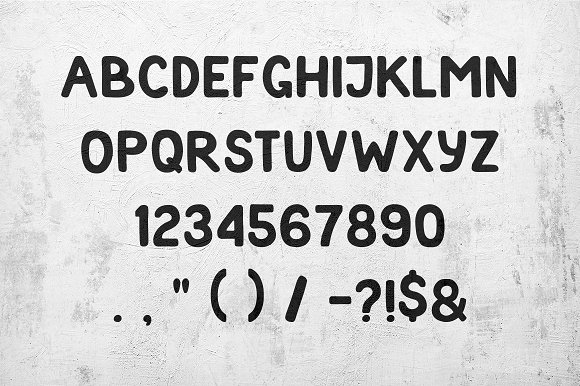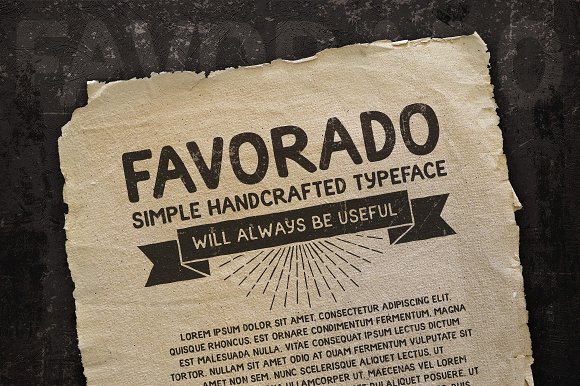
Favorado typeface
Amazing hand-crafted, sans-serif OTF font. Only uppercase. Suitable for any design, especially for headings.
Included 2 styles: Regular and Bulk
I recommend using only lowercase letters when you type text in this font, since for them kerning is improved